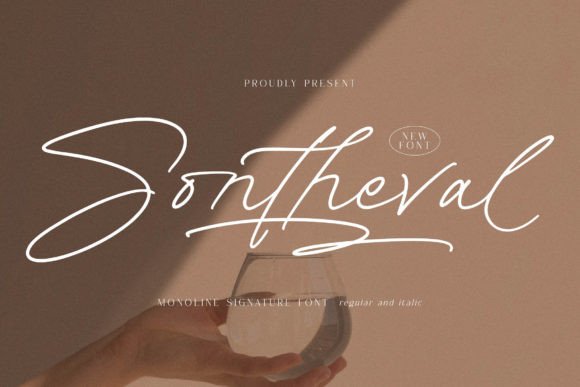
Dive into the realm of sophistication and elegance with Sontheval Font, a captivating handwritten font that will transform your designs into masterpieces. Experience the fusion of classic calligraphy with a modern twist, crafted by Glorytype Studio, a renowned name in font artistry. Sontheval Font is not just a font; it's an expression of creativity, a gateway to artistic excellence.
Embark on a typographic journey where letters dance with grace and beauty. Sontheval Font's exquisite strokes and enchanting flow will elevate your projects to new heights. Whether you're a passionate designer, a creative entrepreneur, or a lover of aesthetics, Sontheval Font is your perfect companion.
Envision your website headers adorned with Sontheval Font, exuding an air of sophistication that captures attention and leaves a lasting impression. Let your social media posts radiate charm and elegance, making your content stand out in the digital landscape. Unleash your creativity in branding and packaging designs, transforming ordinary products into objects of desire.
With Sontheval Font, you're not just downloading a font; you're embracing an experience that ignites your artistic passion. It's a font that speaks to the heart, evoking emotions and creating connections. Let Sontheval Font be your creative muse, inspiring you to create designs that resonate with your audience.
Don't settle for ordinary fonts; embrace the extraordinary with Sontheval Font. Its versatility knows no bounds, adapting seamlessly to a wide range of creative endeavors. From wedding invitations that exude romance to corporate presentations that demand attention, Sontheval Font delivers exceptional results every time.
Join the creative revolution and unlock the full potential of your designs with Sontheval Font. Discover the joy of creating with a font that's as unique and captivating as your imagination. Experience the difference and see how Sontheval Font transforms your projects into works of art.